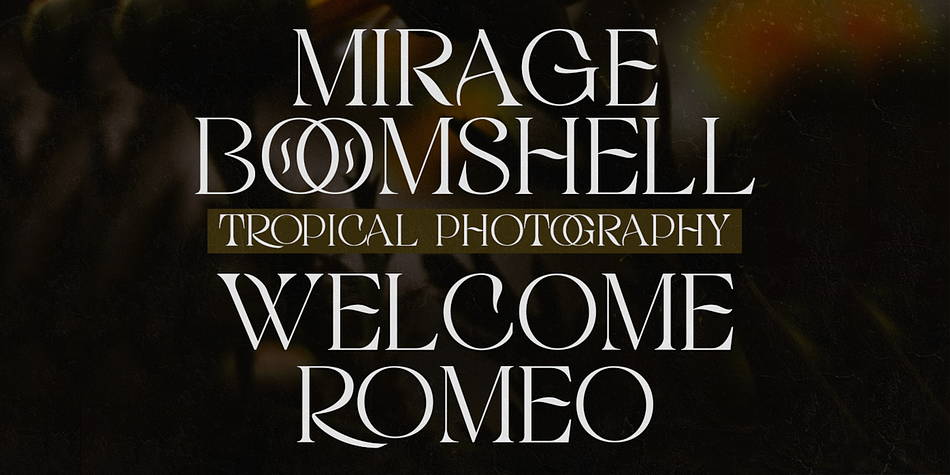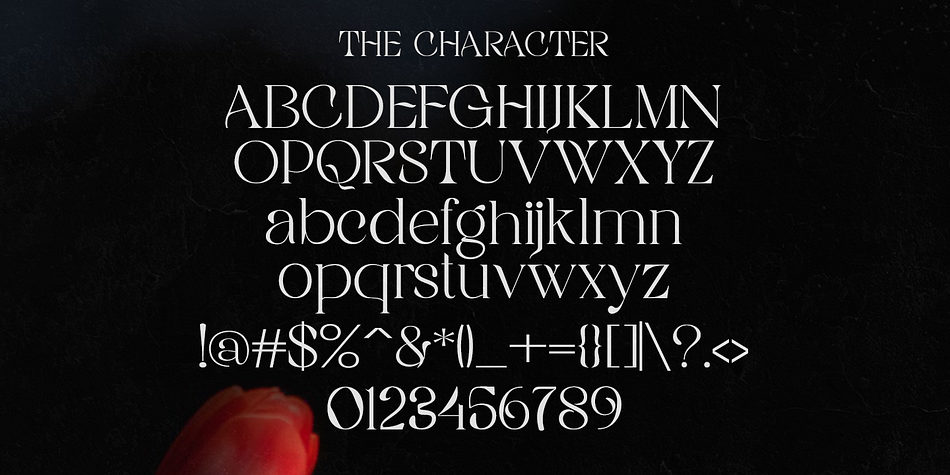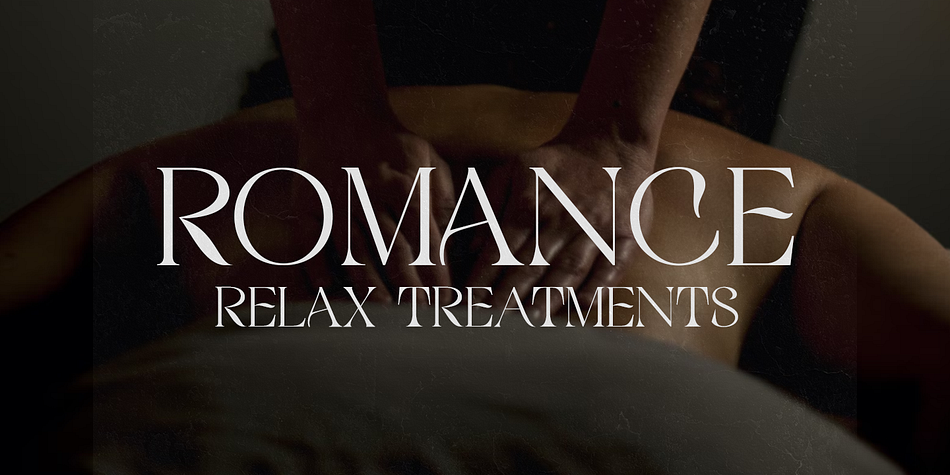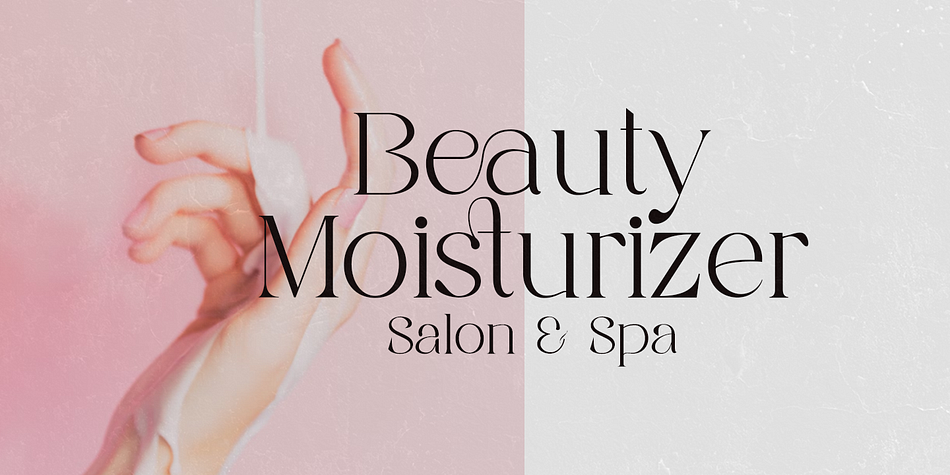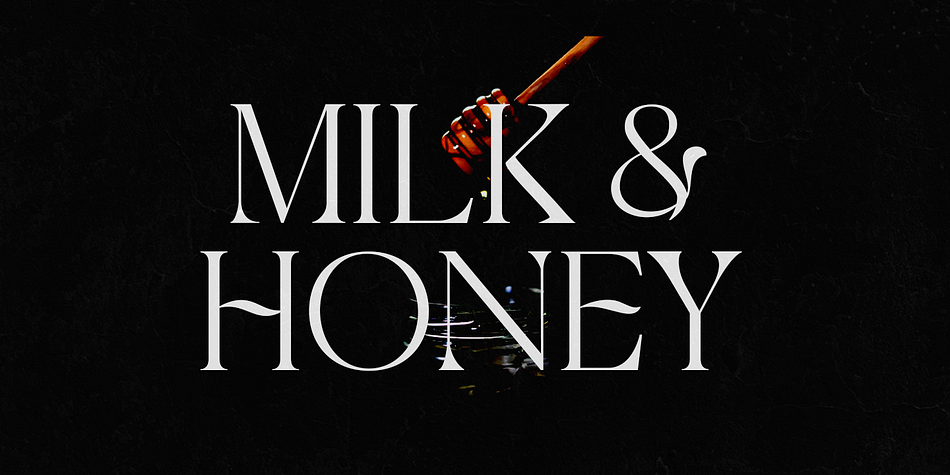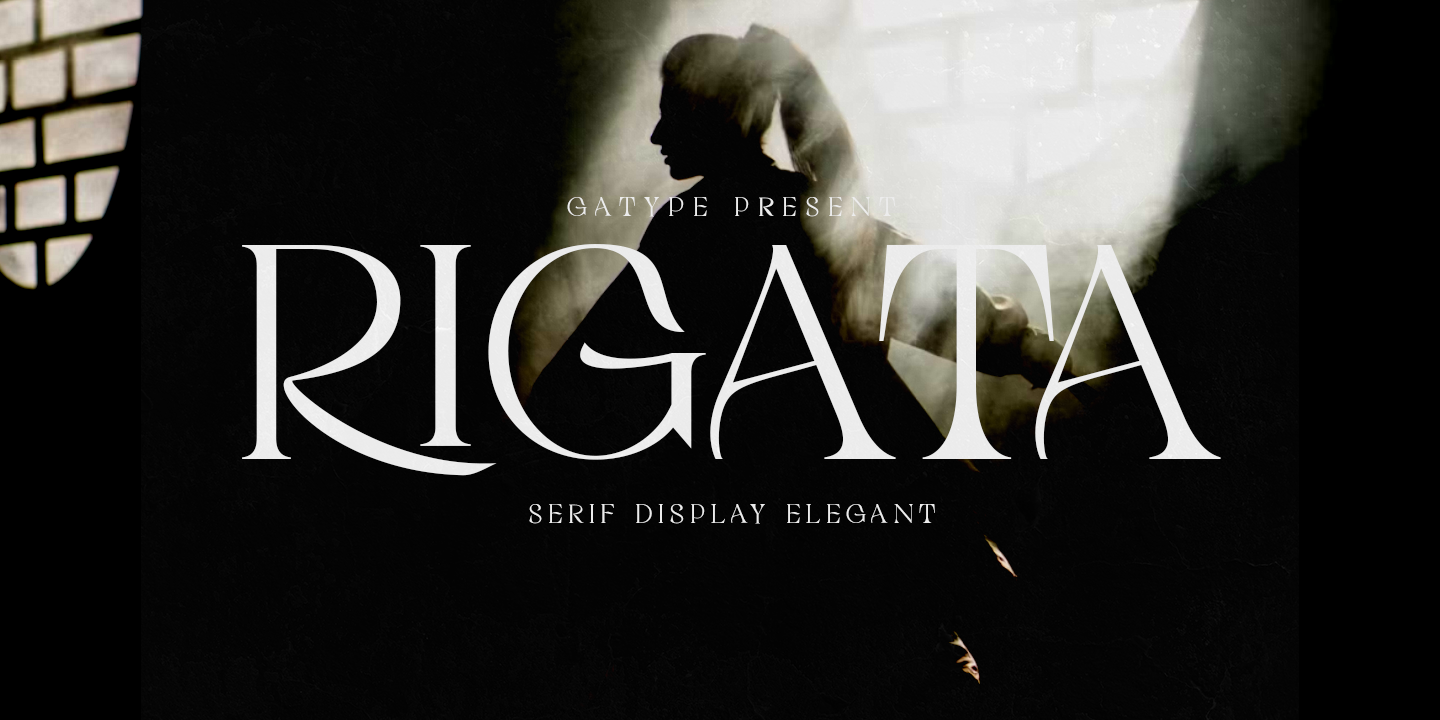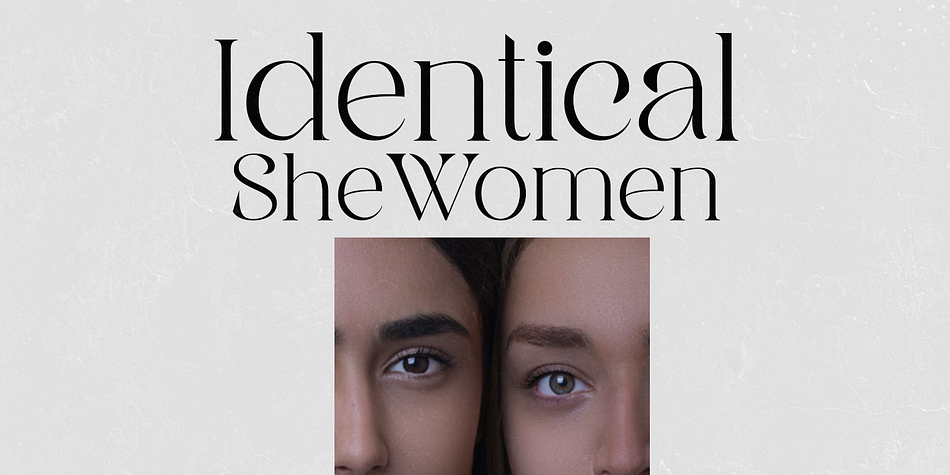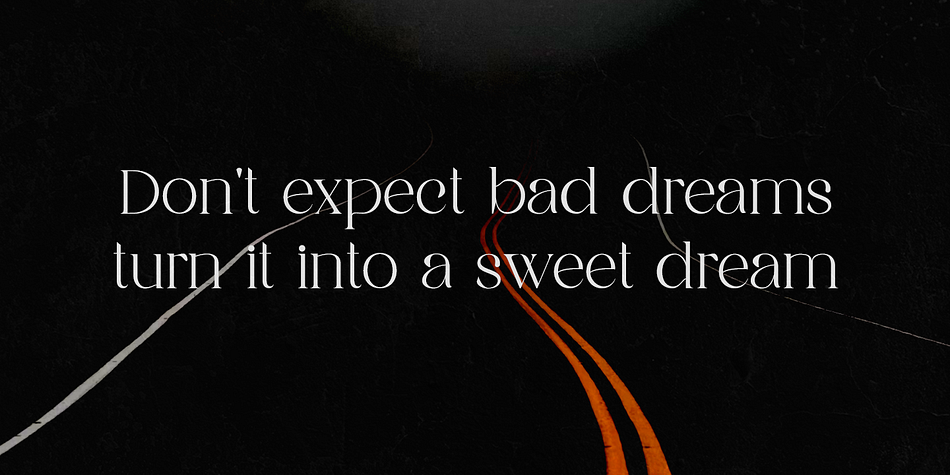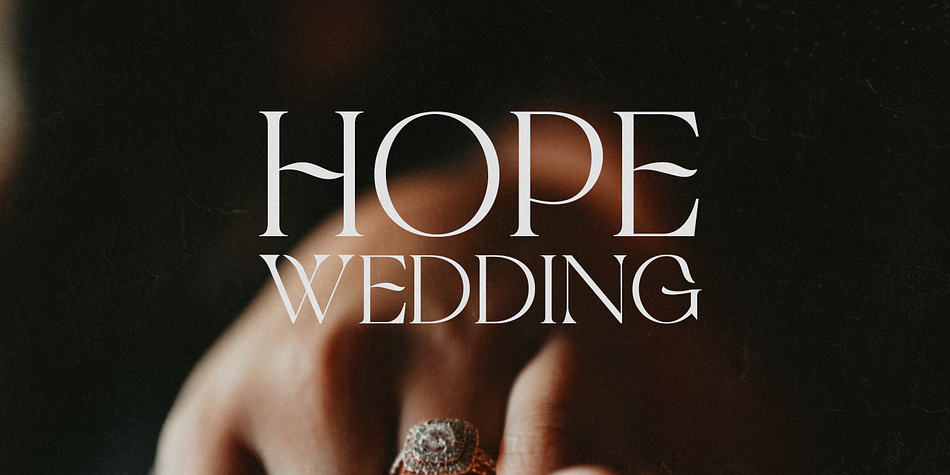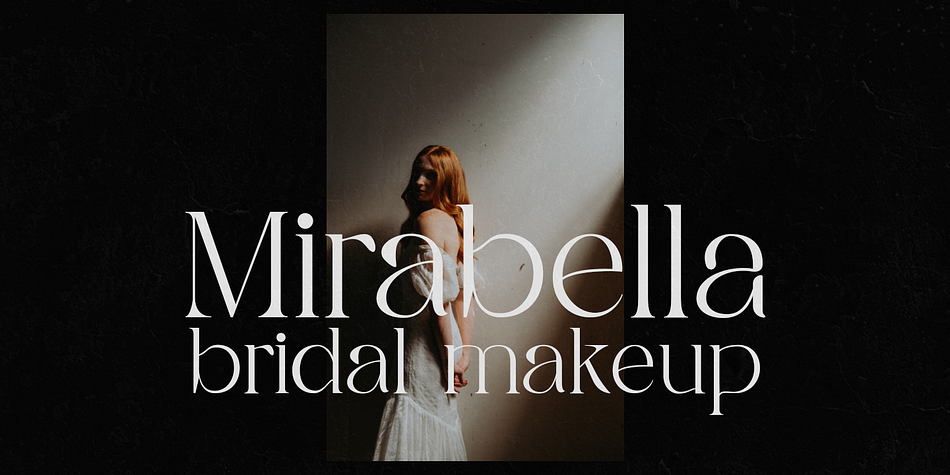
Rigata
Rigata is a display serif font family published by Gatype.
The newest Rigata Serif is elegant and luxurious perfect for invitations, logos, branding, greetings, social media themes and wedding invitation designs. It is also a great typeface for titles because of its smooth design and attractive appearance.
. Ligature.